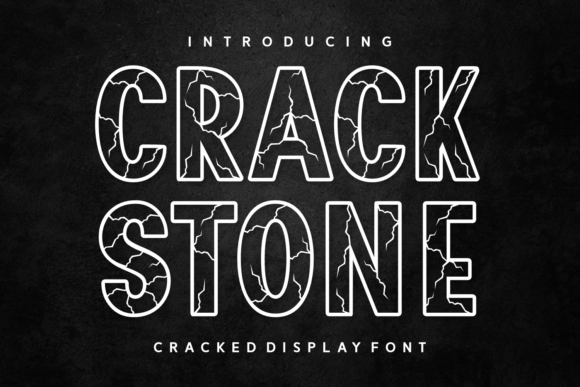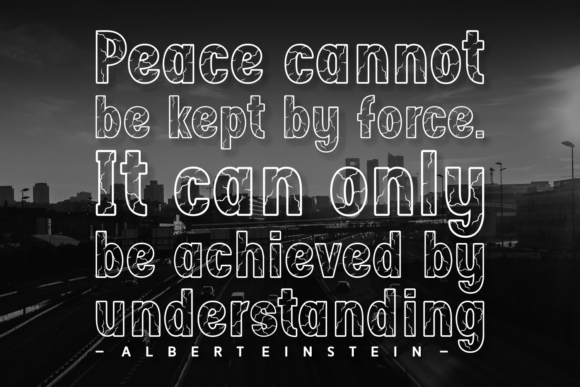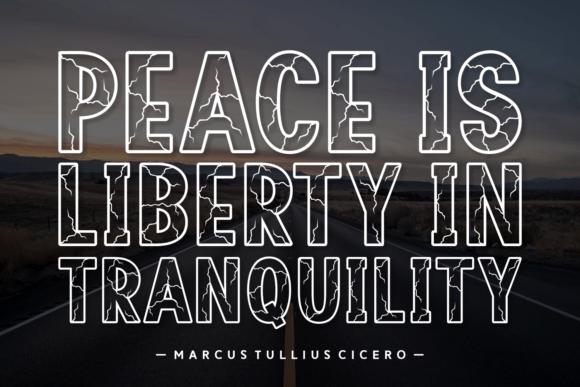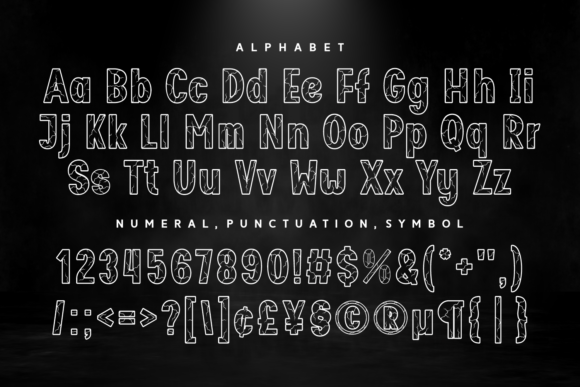
Crack Stone Font: Unique Grunge Display Font for Bold Designs
About the Crack Stone Font
Introducing the Crack Stone Font, a beautifully crafted typeface designed to elevate your creative projects. Crack Stone is a unique decorative font with a grungy look. Express your creative ideas with this intriguing typeface! These eye-catching characters look awesome on posters, titles, covers, banners, logos, and many more.
Crack Stone’s grungy texture and bold forms make it ideal for headlines, posters, and branding projects that demand a strong, edgy aesthetic. It excels in short, impactful statements where its unique character can shine. Avoid using it for body text or UI elements; its decorative nature compromises readability in extended passages.
Consider pairing Crack Stone with a clean sans-serif like Open Sans for a balanced contrast, or a more geometric font such as Roboto for a modern, industrial feel. For a touch of sophistication, a classic serif such as Garamond can temper its roughness, creating a visually interesting juxtaposition.
The overall personality of Crack Stone is bold and rebellious, lending itself well to brands targeting a younger demographic or projects emphasizing street style, rock music, or urban themes. It projects a raw, authentic energy.
Crack Stone Font Usage Examples
Crack Stone Font Example